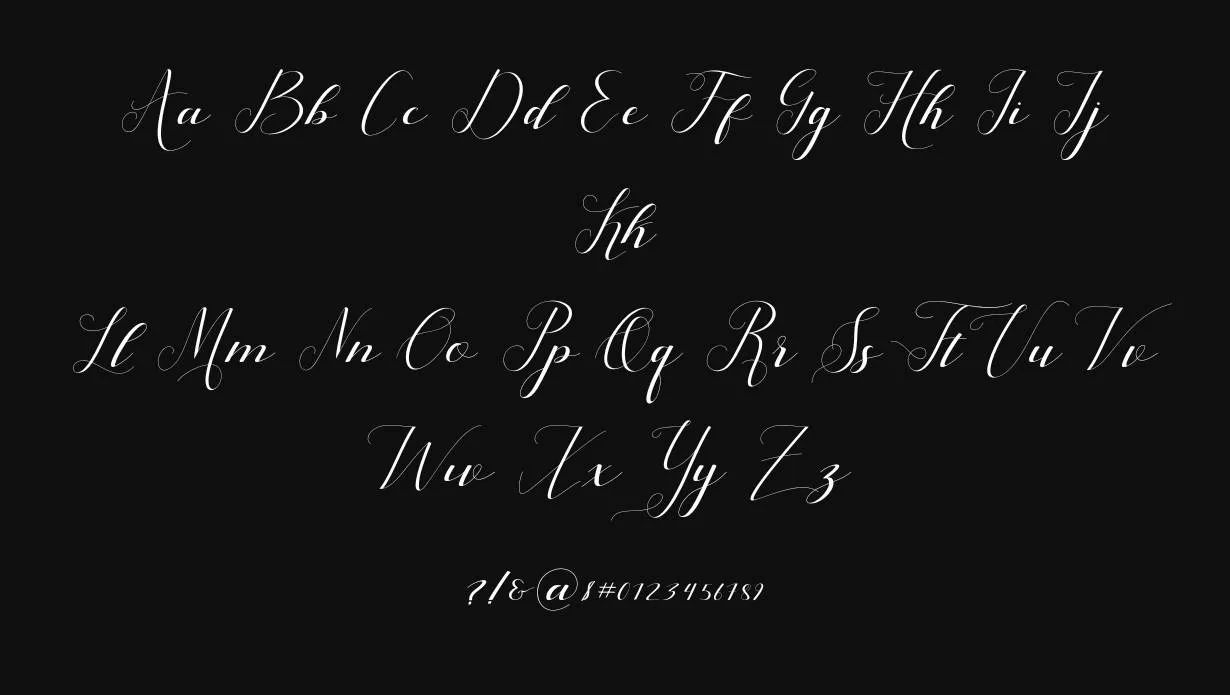
Let’s talk about a very classy calligraphy typeface Cilicia Script Font. This amazing font is designed by Teweka Font. It has so many features which can be used to make attractive designs it contains 217 characters and 185 glyphs. You can make eye-catching art designs by using this font. It can also be used for making different types of graphic designs in Adobe Photoshop, CSS, MS Word, and Canva.
| Name | Silicia Script Font |
| Designer | Teweka Font |